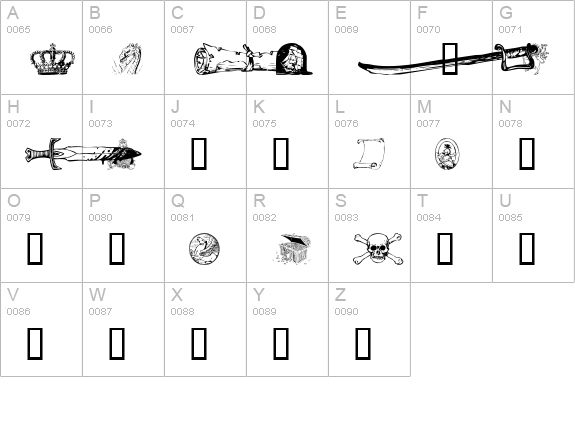
Fantasy clipart 2 Font Details
Fantasy clipart 2 font is a whimsical and enchanting typeface that will transport you to a magical world of fantasy and adventure. This charming font features intricate details and decorative elements that evoke images of fairy tales and mythical creatures. With its elegant curves and intricate designs, Fantasy clipart 2 font is perfect for adding a touch of magic to your projects. Best of all, this font is available for free download at FontsMarket.com! Simply visit the website to access this captivating typeface and bring a touch of fantasy to your designs. Whether you're creating invitations, posters, or social media graphics, Fantasy clipart 2 font is sure to add a magical touch to your work. Download it today and let your imagination soar!